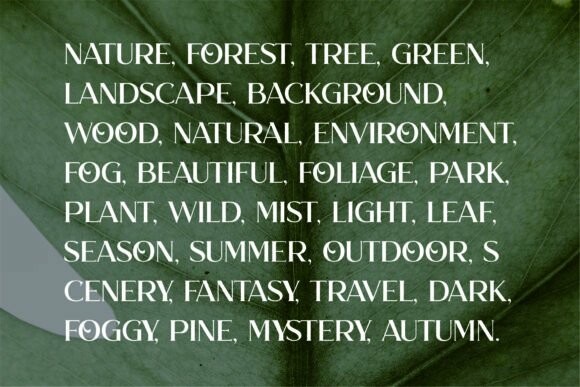
Hello Forest Font
Hello Forest Font is a modern and elegant serif font. It features clean, stylish lines with a touch of classic charm. Perfect for creating sophisticated designs, it’s easy to read and adds a refined look to any project.